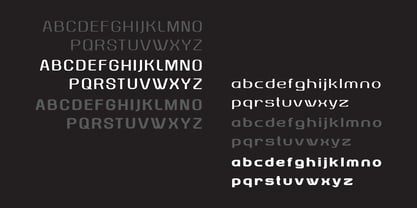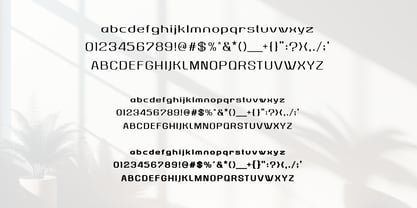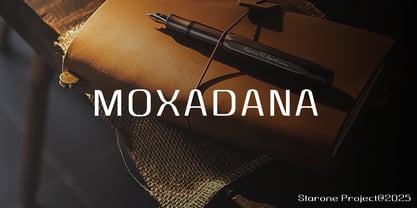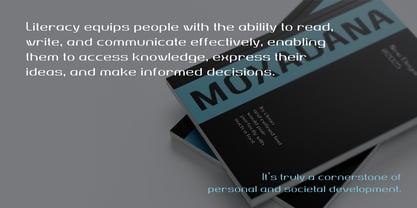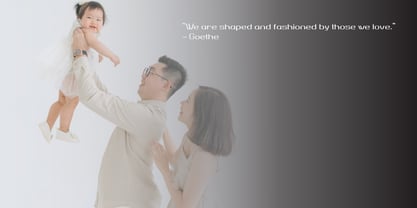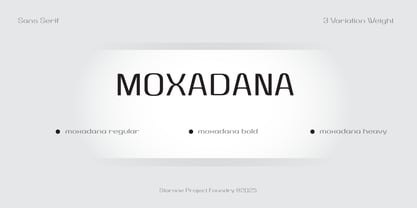
Moxadana
Die Schriftfamilie Moxadana wurde von Mohammad Teguh entworfen und von Starone Project veröffentlicht. Moxadana enthält 3 Stile und Familienpaketoptionen. Mehr über diese Familie
Fonts are a fundamental element of design and communication, as they directly impact how text is perceived and understood. At their core, fonts are stylized designs for text characters, encompassing their size, weight, spacing, and style. They play a pivotal role in shaping the tone of any written material—whether it exudes professionalism, playfulness, elegance, or boldness. For instance, sans-serif fonts like MOXADANA Family are associated with modernity and clarity.
Ultimately, MOXADANA fonts are not just visual elements; they are trying communicate the impact of written words.